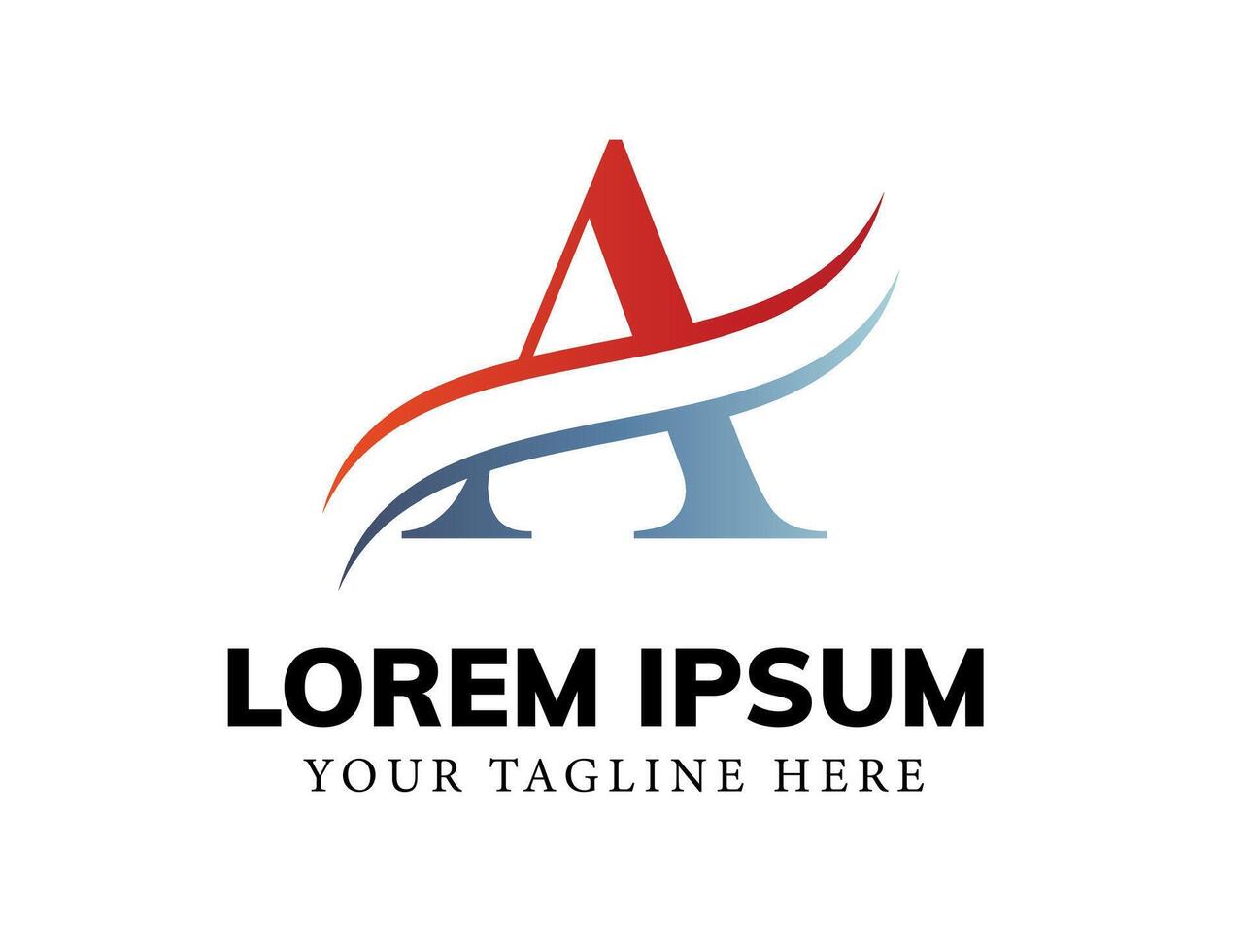
A logo. Elegant alphabet A letters font logo. Simple Arrow Up Logo Image. Flat Logo Design Template Element Usable for Business and Branding logos vector